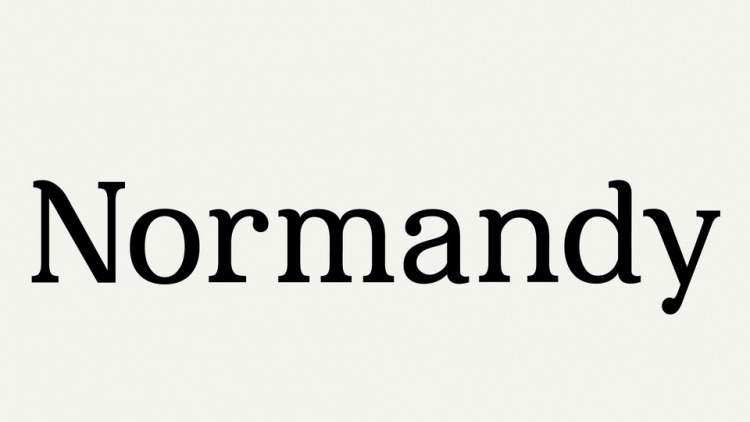
Magnolia Font
Magnolia Serif Font
It’s a experimental serif font that performs well for mid-length text and it’s the perfect choice for thin headlines. It’s designed and shared by Wjatscheslaw Smesnoj. Magnolia is an effective set for creating identities for branding, posters, book covers, headlines, logotypes, restaurants, menu cards, wedding invitations and so on.